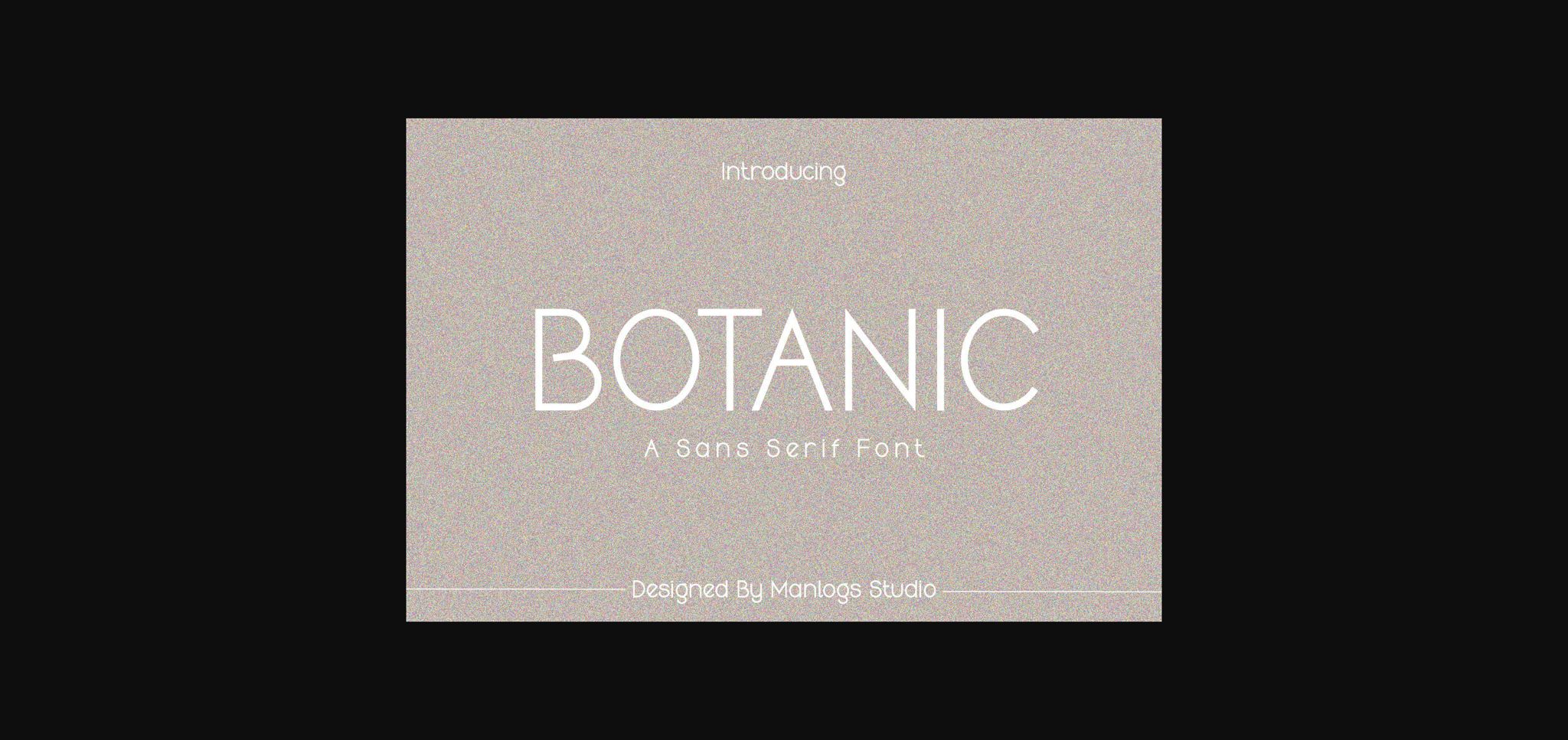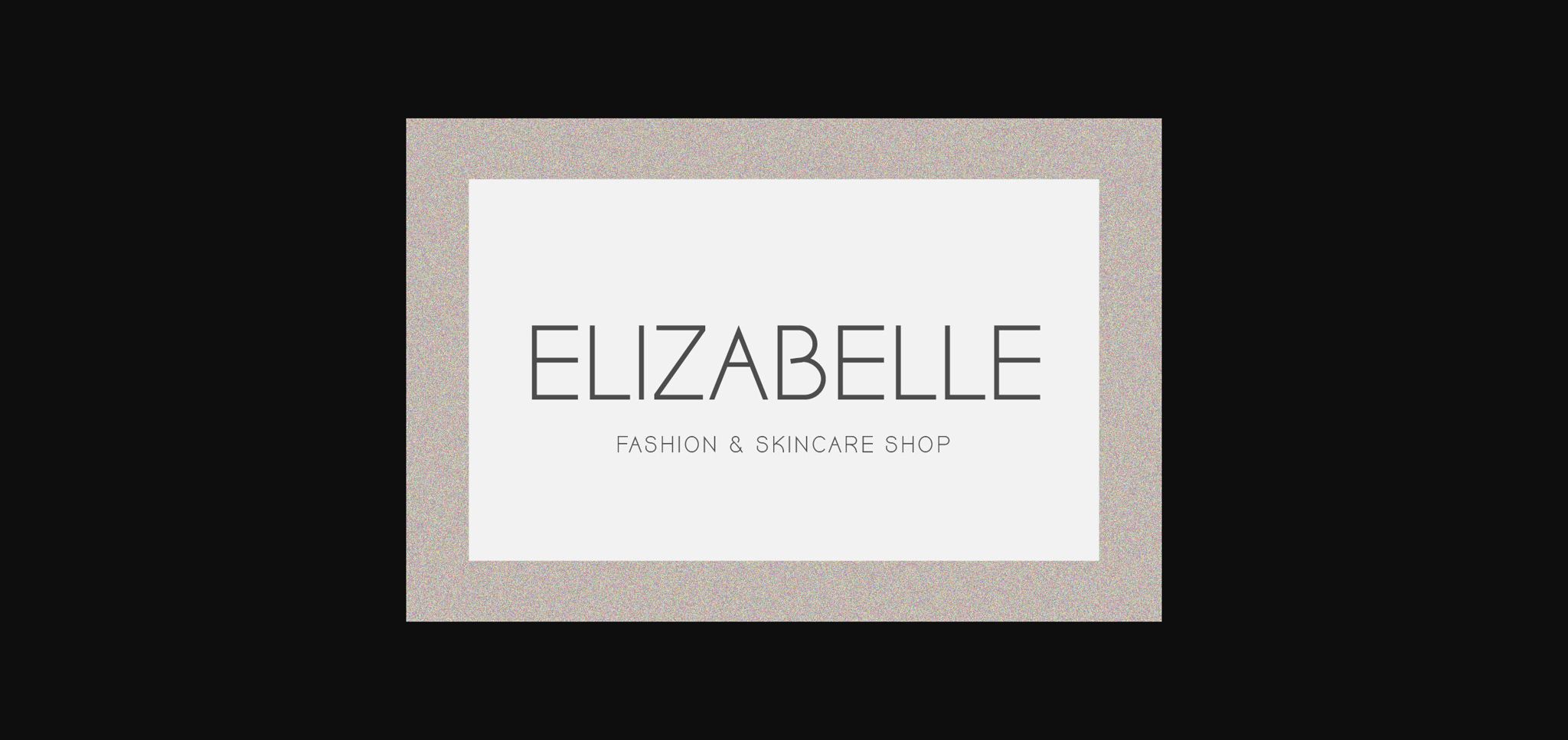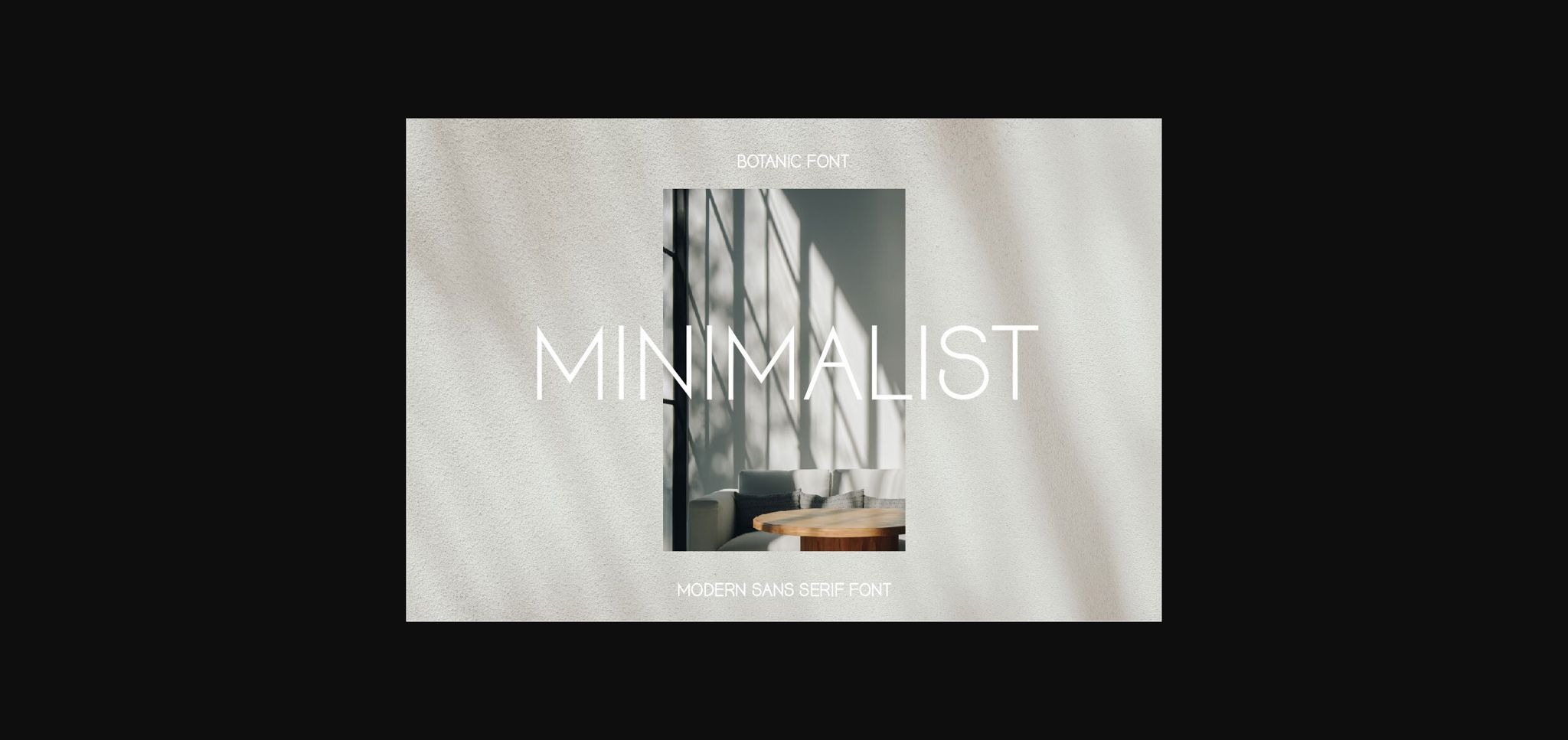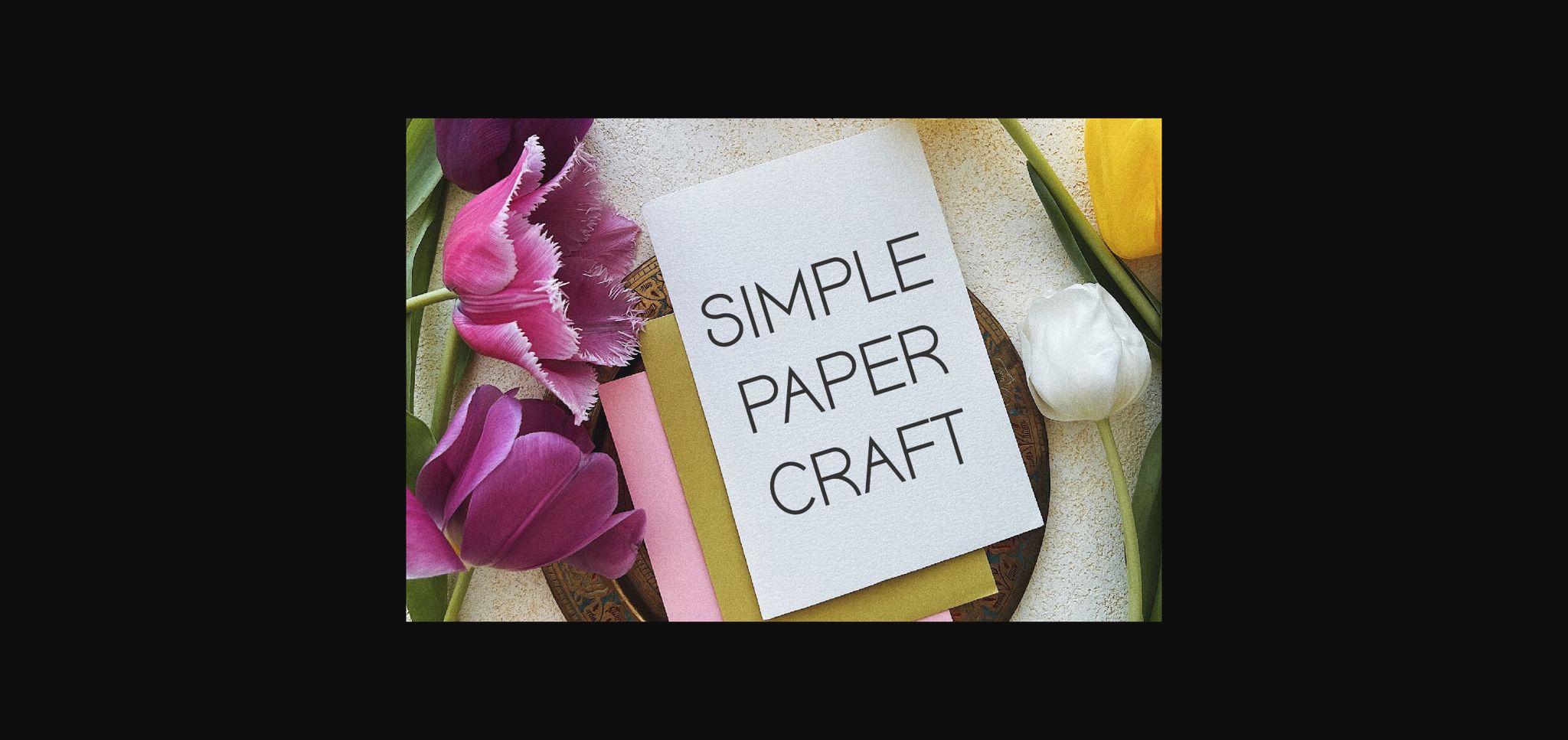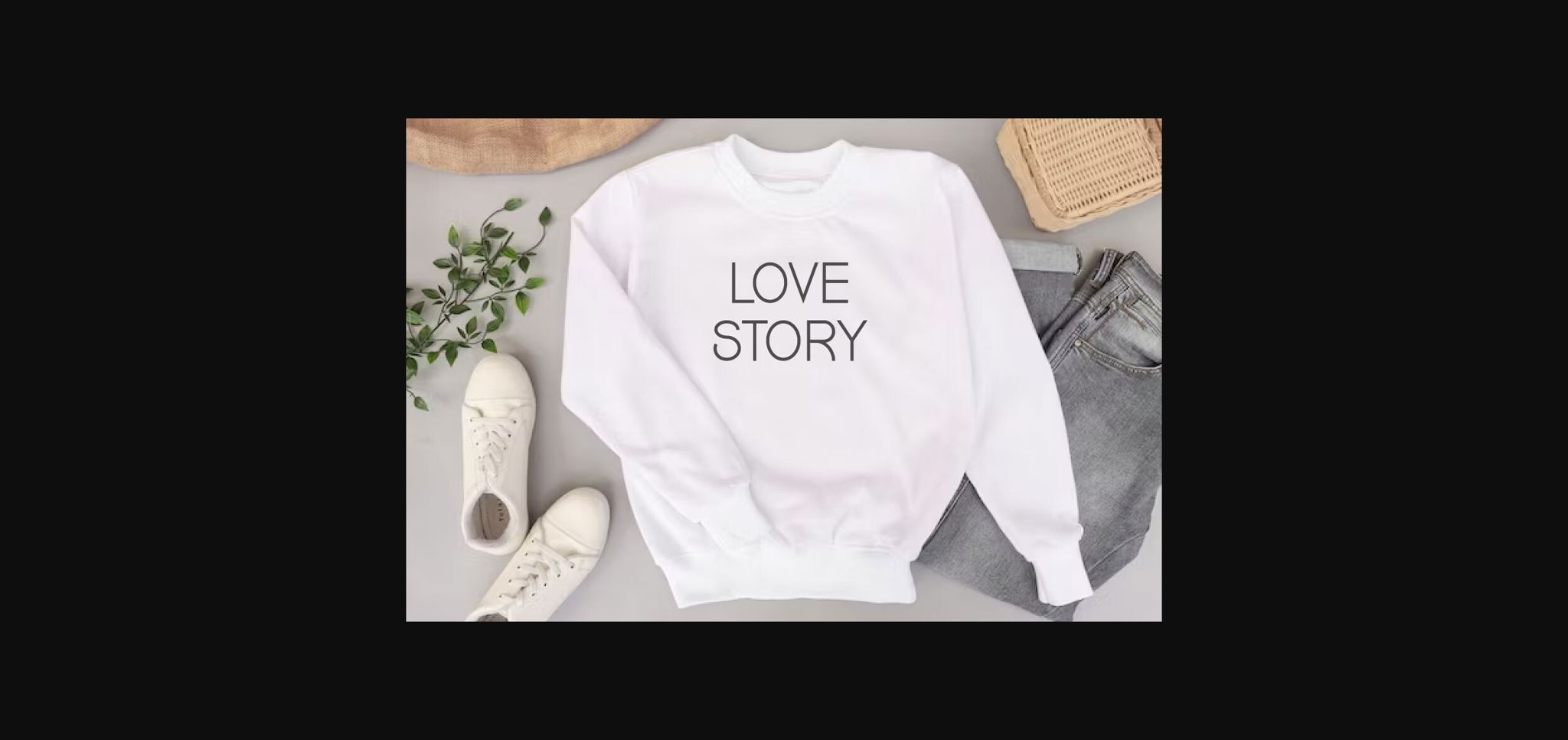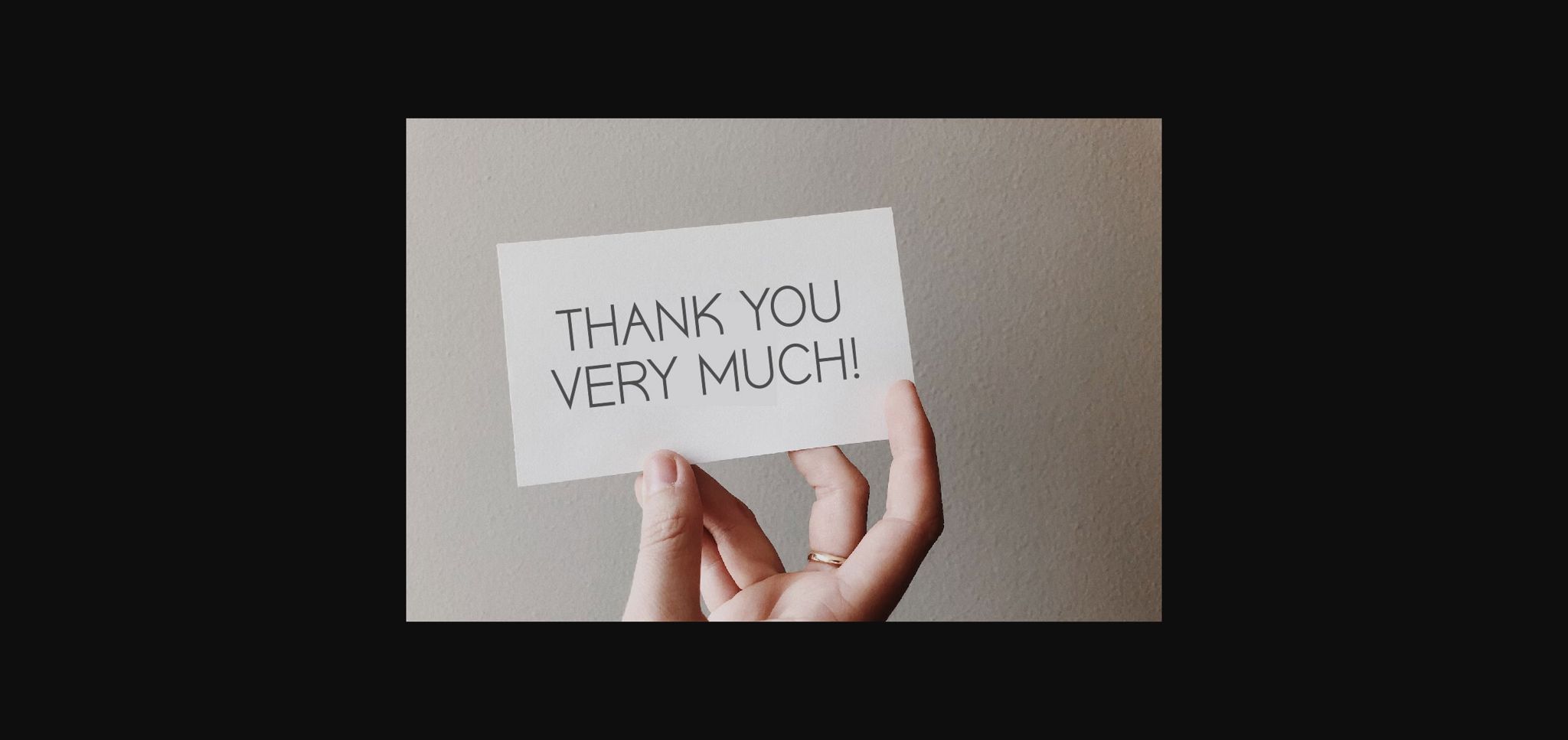
Botanic Font
About Botanic Font
Botanic is a simple and verstile sans-serif font designed for a clean retro look. With its vintage balanced proportions, this font is perfect for creating a minimalist aesthetic in craft design, fashion, mug, wedding invitation, home decor, quotes, t-shirt, gift labels, logos, web design, branding and more!